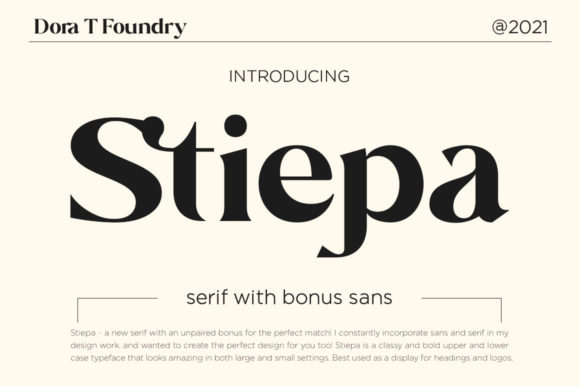
Take typography to new heights with Stiepa Font, the ultimate display font family that combines elegance and edge like no other. This exquisite collection of upper and lowercase characters will elevate your designs with its bold, classy presence, leaving a lasting impression in both large and small settings.
Unleash your creativity with Stiepa Font, the perfect companion for a myriad of projects. Let your imagination soar as you craft luxury logos that exude sophistication. Create branding that speaks volumes, leaving an unforgettable mark on your audience. Embark on editorial design projects with a sense of confidence, knowing that Stiepa Font will bring your words to life with captivating style.
Envision the allure of women's magazines adorned with Stiepa Font's captivating curves, drawing readers into a world of elegance and intrigue. Transform cosmetic brands into symbols of beauty and sophistication, with packaging that whispers luxury and indulgence. Venture into the realm of greeting cards and posters, letting Stiepa Font convey heartfelt messages with a touch of panache.
Stiepa Font isn't just a font; it's a gateway to a world of design possibilities. Embrace the boundless creativity within you and allow Stiepa Font to guide you towards typographic greatness. For wedding hanger designs, let Stiepa Font weave its magic, transforming ordinary hangers into exquisite works of art.
Your search for the perfect display font ends here with Stiepa Font. Its beauty, versatility, and charm will captivate your audience, leaving them in awe of your design prowess. Experience the power of typography at its finest and elevate your projects to new heights.